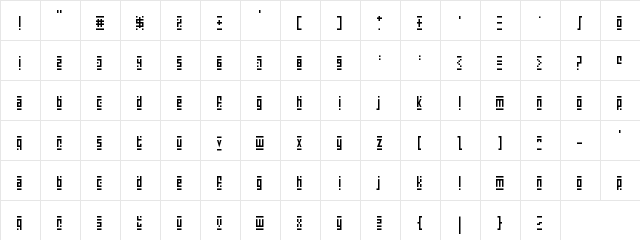
Super Skinny Pixel Bricks Regular
Design Context for Super Skinny Pixel Bricks Typeface
Super Skinny Pixel Bricks celebrates the constraints of early digital type, turning pixel geometry into a distinctive and immediately recognisable style.
Well-suited to indie game interfaces, retro computing aesthetics, and pixel art-adjacent design work.
Pro Tip: Use Super Skinny Pixel Bricks at sizes that align with its pixel grid for the sharpest rendering — scaling to non-integer multiples can introduce unwanted blur.